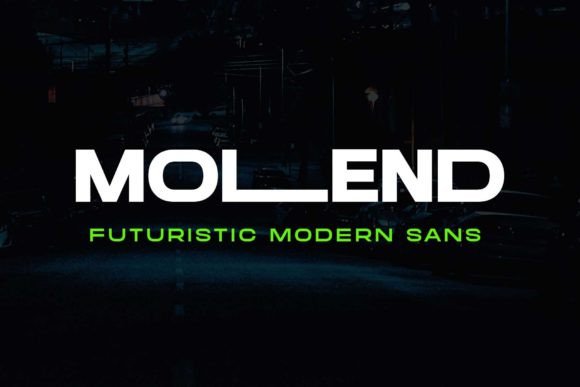
Welcome to the world of Molend Font, the ultimate choice for all your modern logo needs. Created by the talented minds at Arterfak Project, this sans serif font is here to revolutionize the way you design.
Molend Font is not just your ordinary font - it's a powerful tool that allows you to unleash your creativity and customize the letter width. With this unique feature, you can effortlessly create one-of-a-kind designs that will leave a lasting impression on your audience.
Are you tired of dull and uninspiring fonts? Look no further! Molend Font brings a breath of fresh air with its futuristic, techno, brutalist, and experimental styles. It's a font that will make your logos stand out from the crowd and grab attention with its captivating and modern aesthetic.
Drawing inspiration from kinetic typography and urban style, Molend Font embodies the essence of contemporary design. It's the perfect companion for all your display, headline, magazine, editorial, label, logotype, branding, movie, poster, and short quote projects.
But Molend Font is not just about its stunning appearance - it's about evoking emotions and creating a connection with your audience. Whether you want to convey a sense of excitement, professionalism, or minimalism, this font has got you covered. Its versatility allows you to adapt it to any mood or theme effortlessly.